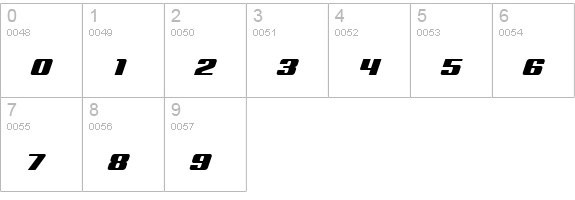
Global-SmallCaps Font Details
Global-SmallCaps is a modern and versatile font that brings a unique touch to any design project. With its clean lines and stylish appearance, this font is perfect for adding a touch of sophistication to your work. The small caps style adds a touch of elegance and professionalism, making it ideal for a wide range of applications. Best of all, Global-SmallCaps is completely free to download at FontsMarket.com. Whether you're working on a website, logo, or printed materials, this font will elevate your design and make a lasting impression. Don't miss out on the opportunity to enhance your projects with this sleek and stylish font – download Global-SmallCaps today and take your designs to the next level!